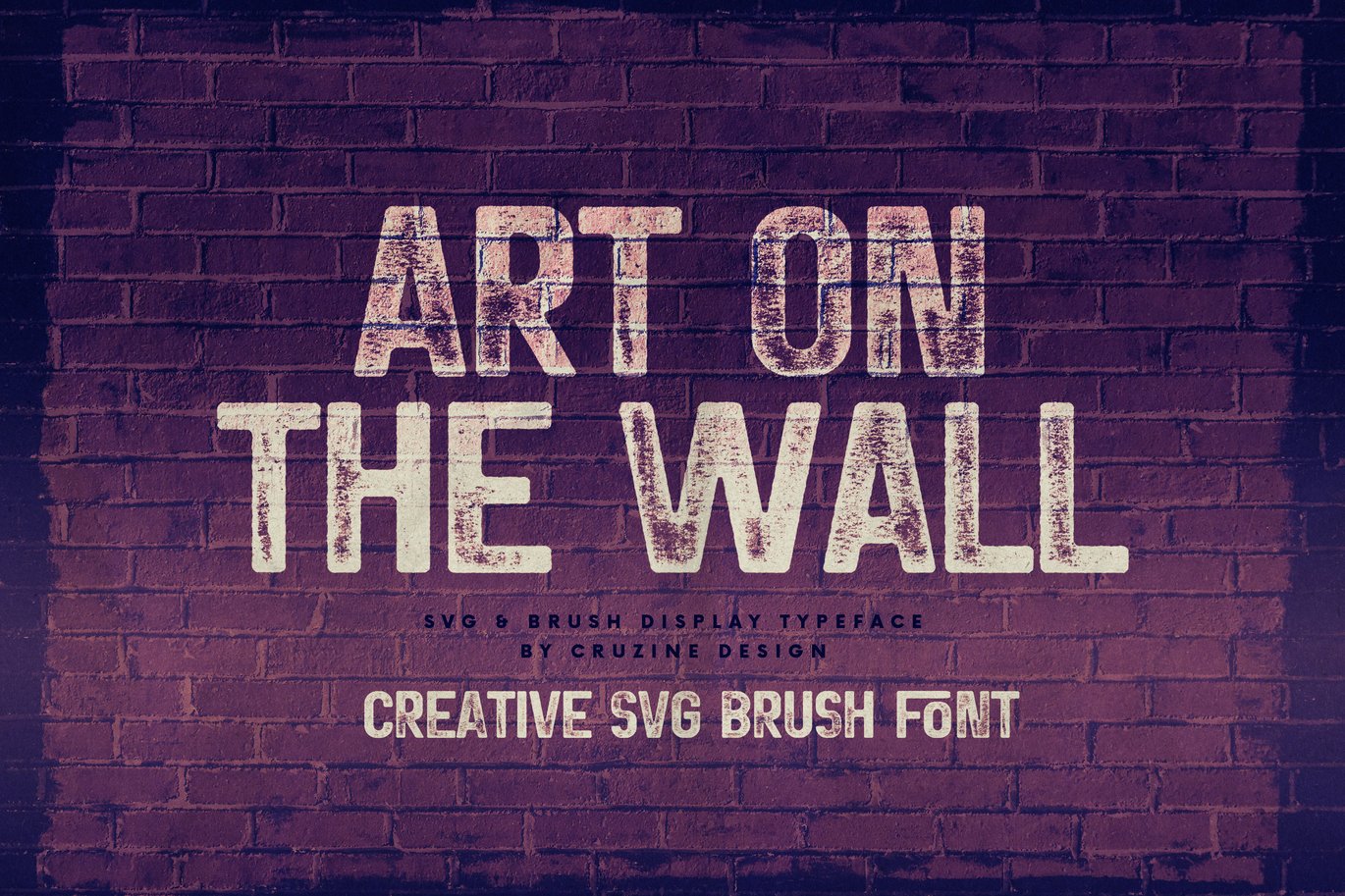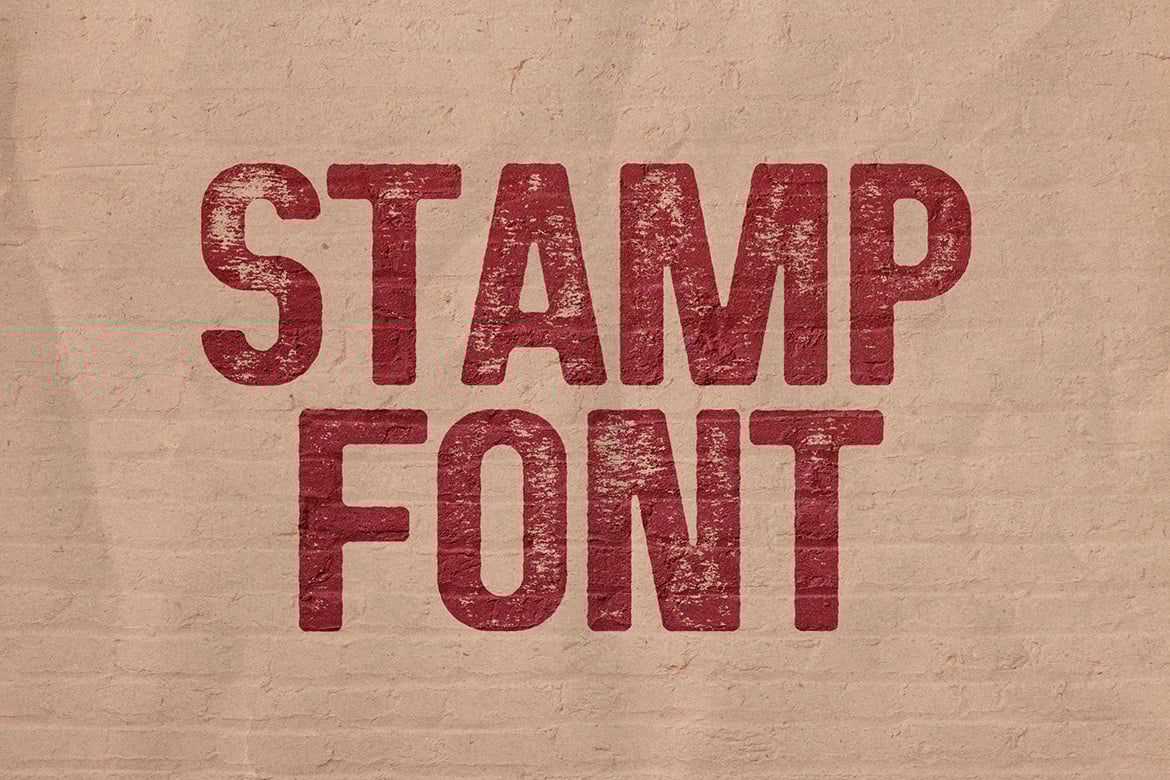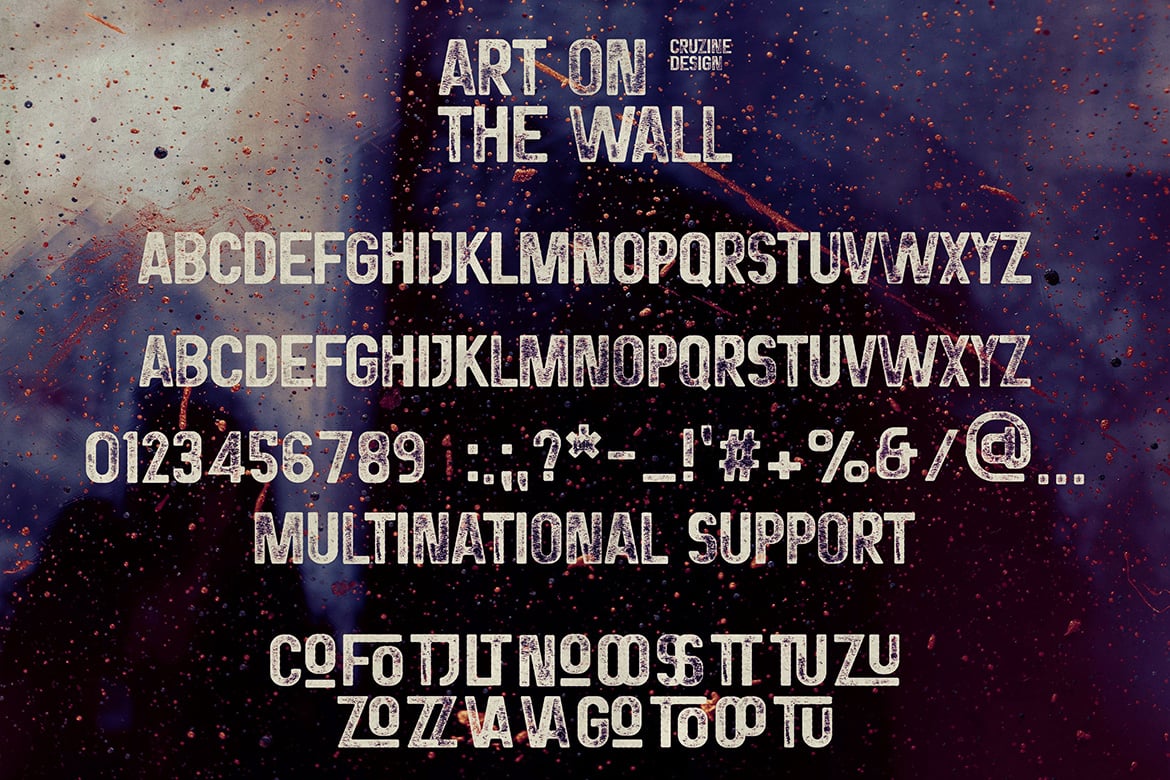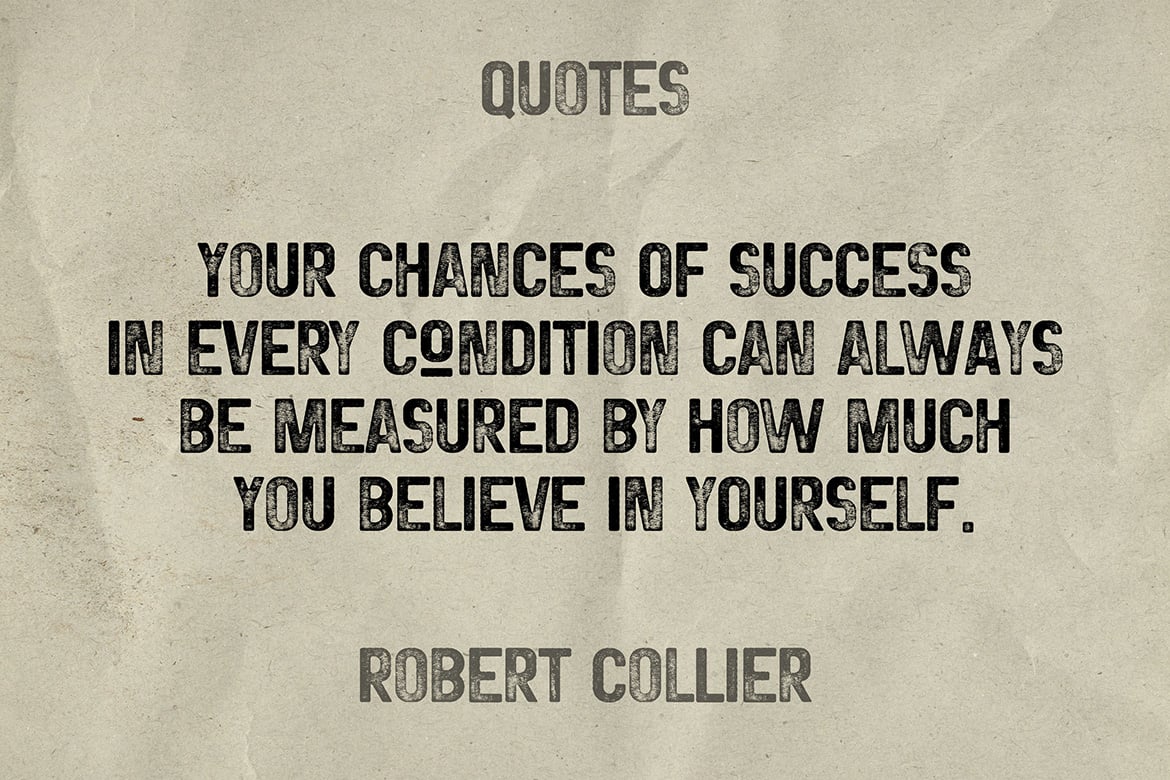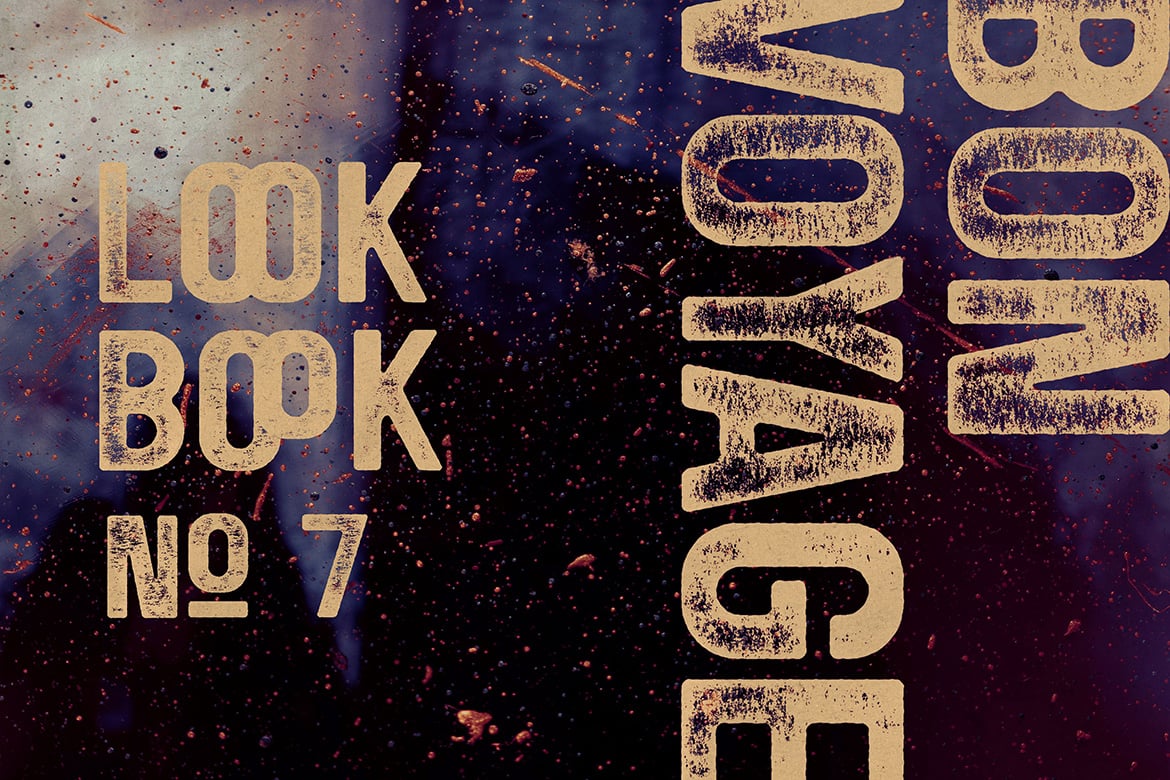
Art on the Wall Svg Stamp Font
Stamp, rough or grunge style sans serif display font for your new projects. Grunge with bold stamp brush. Great for grunge, urban or artistic projects!